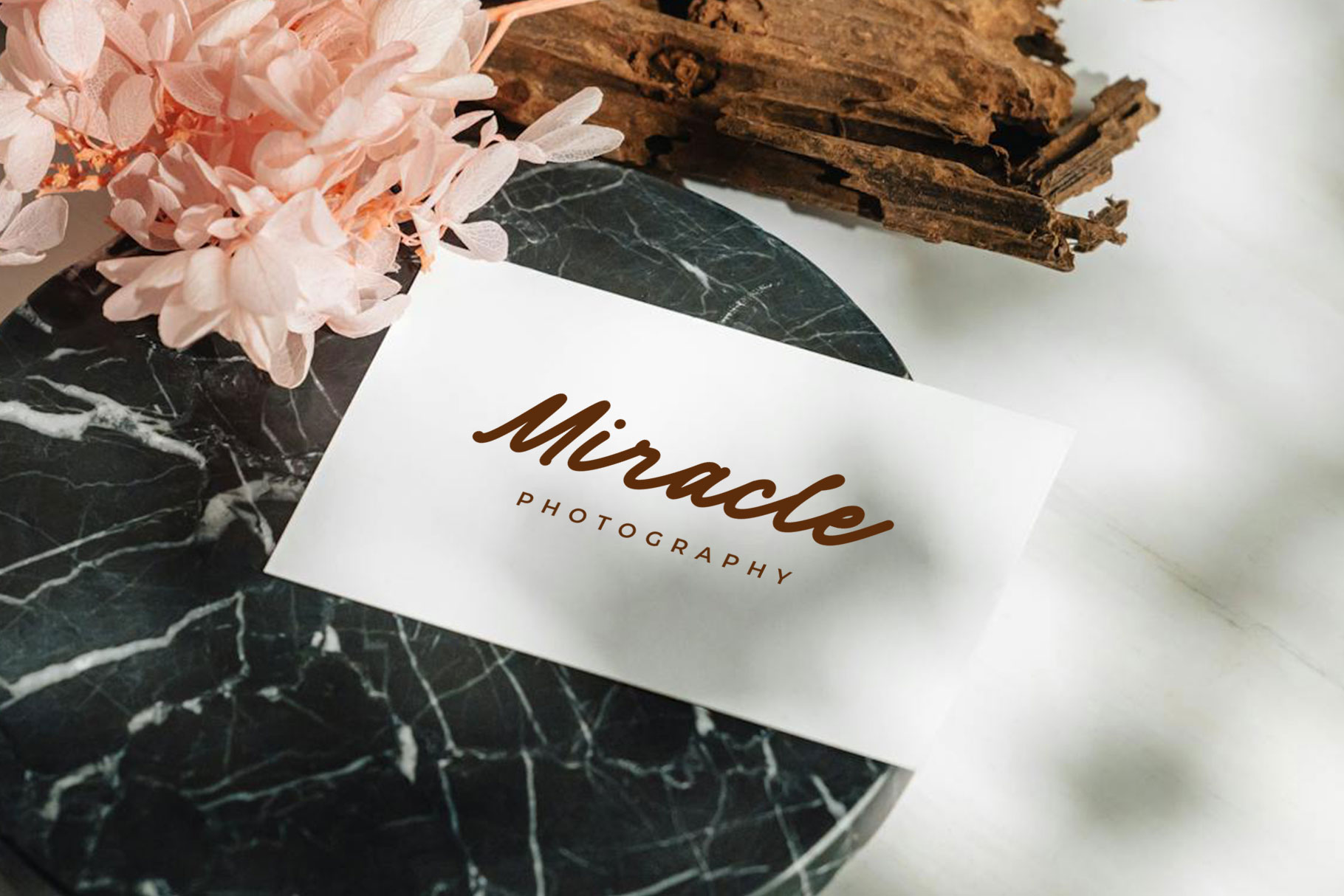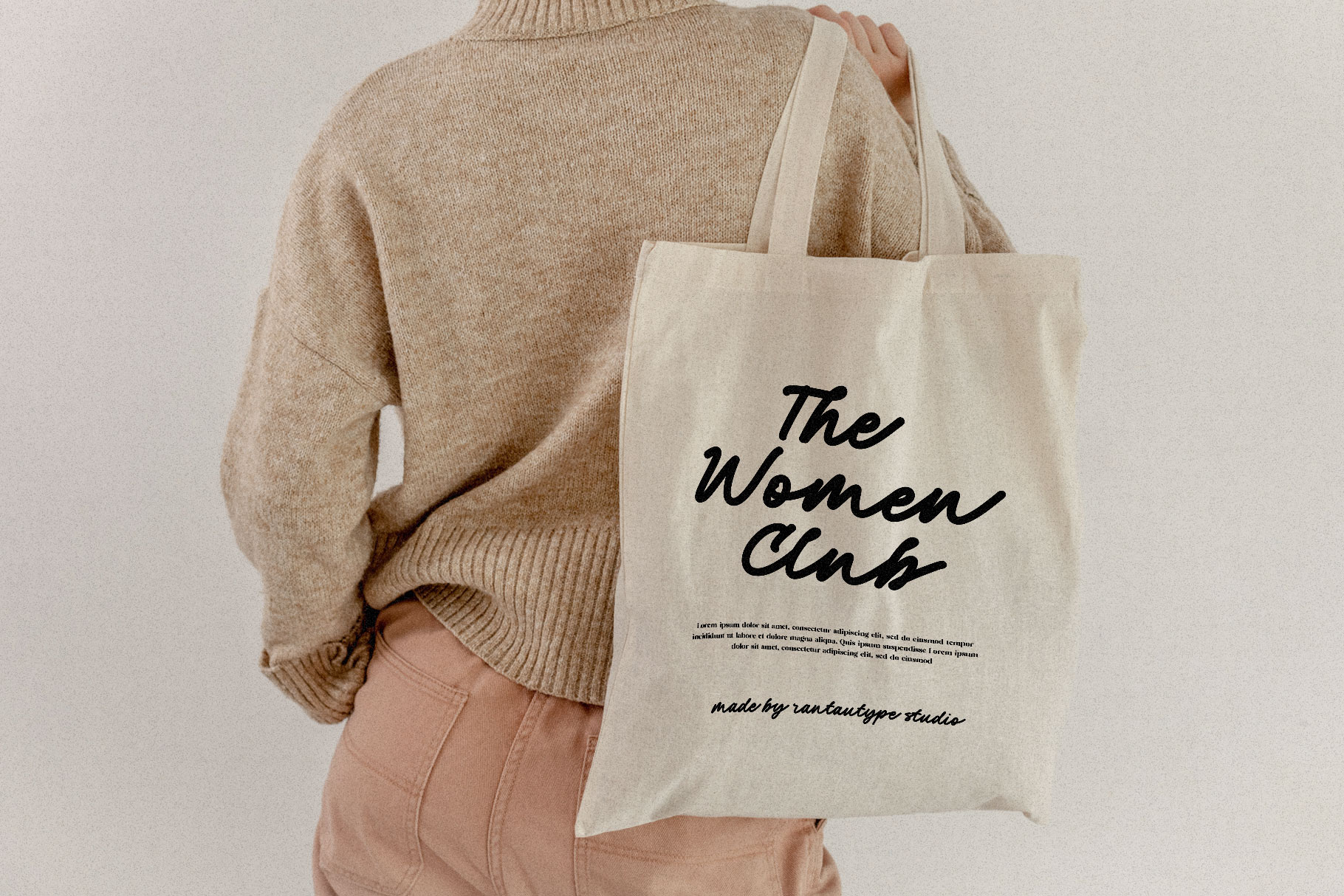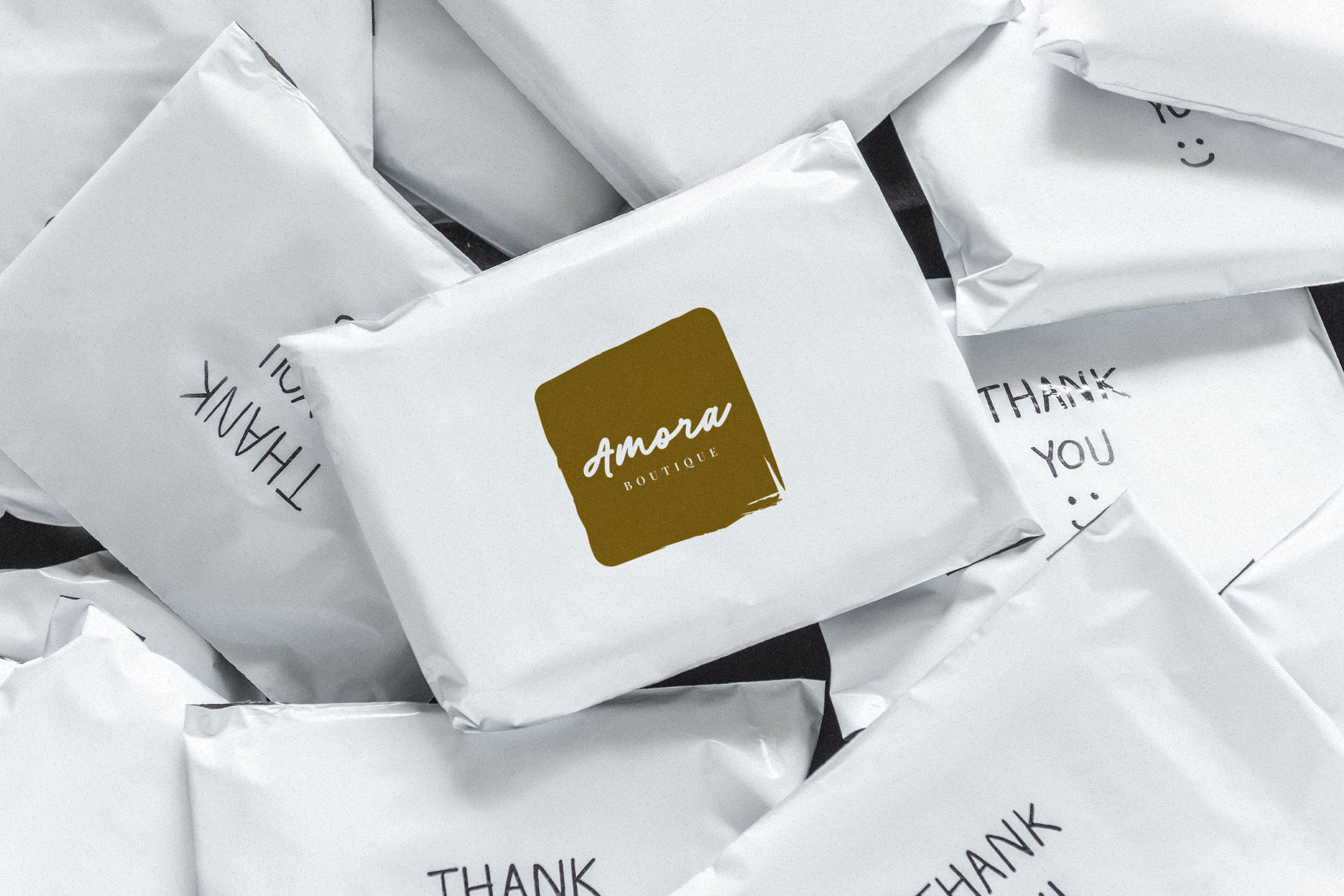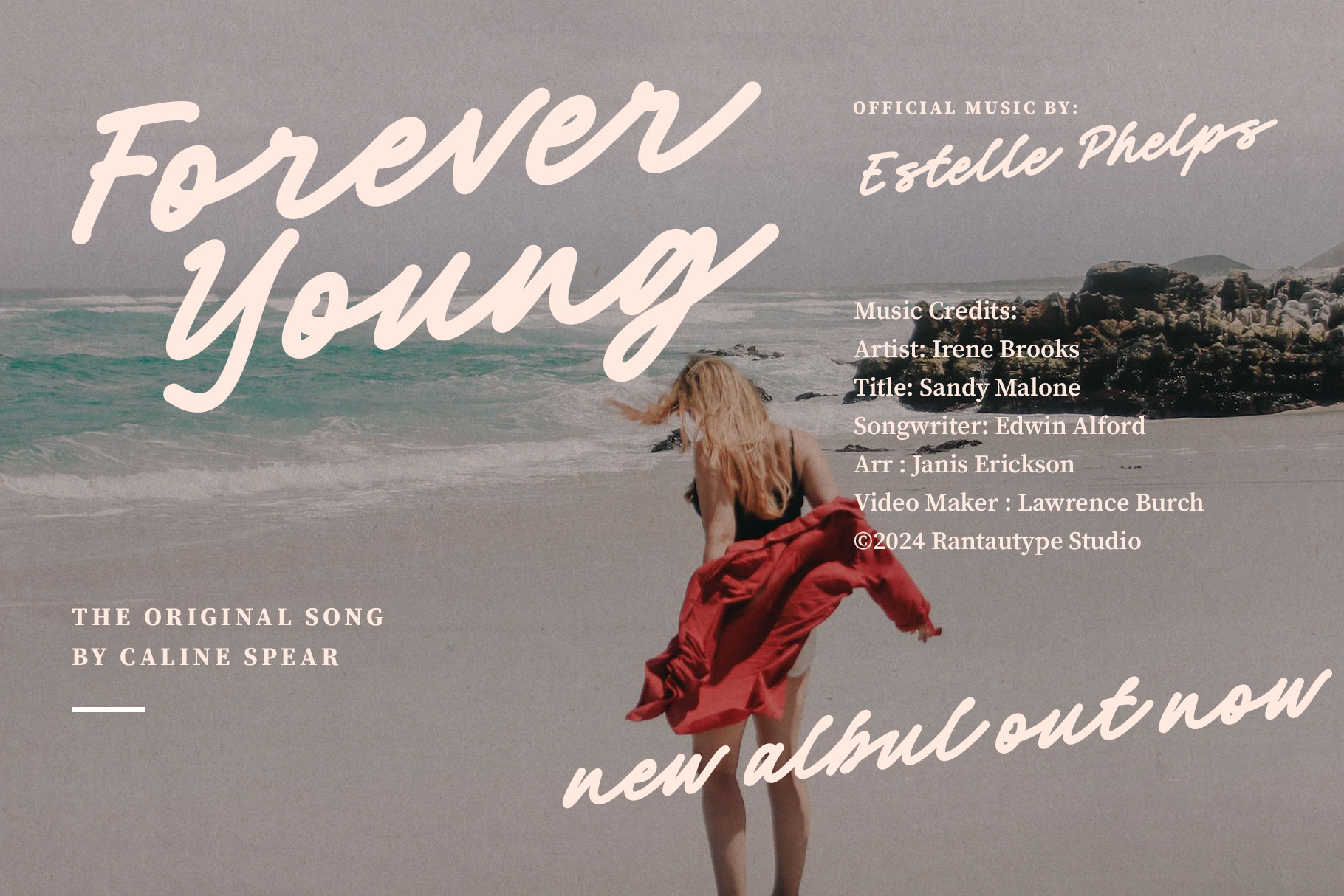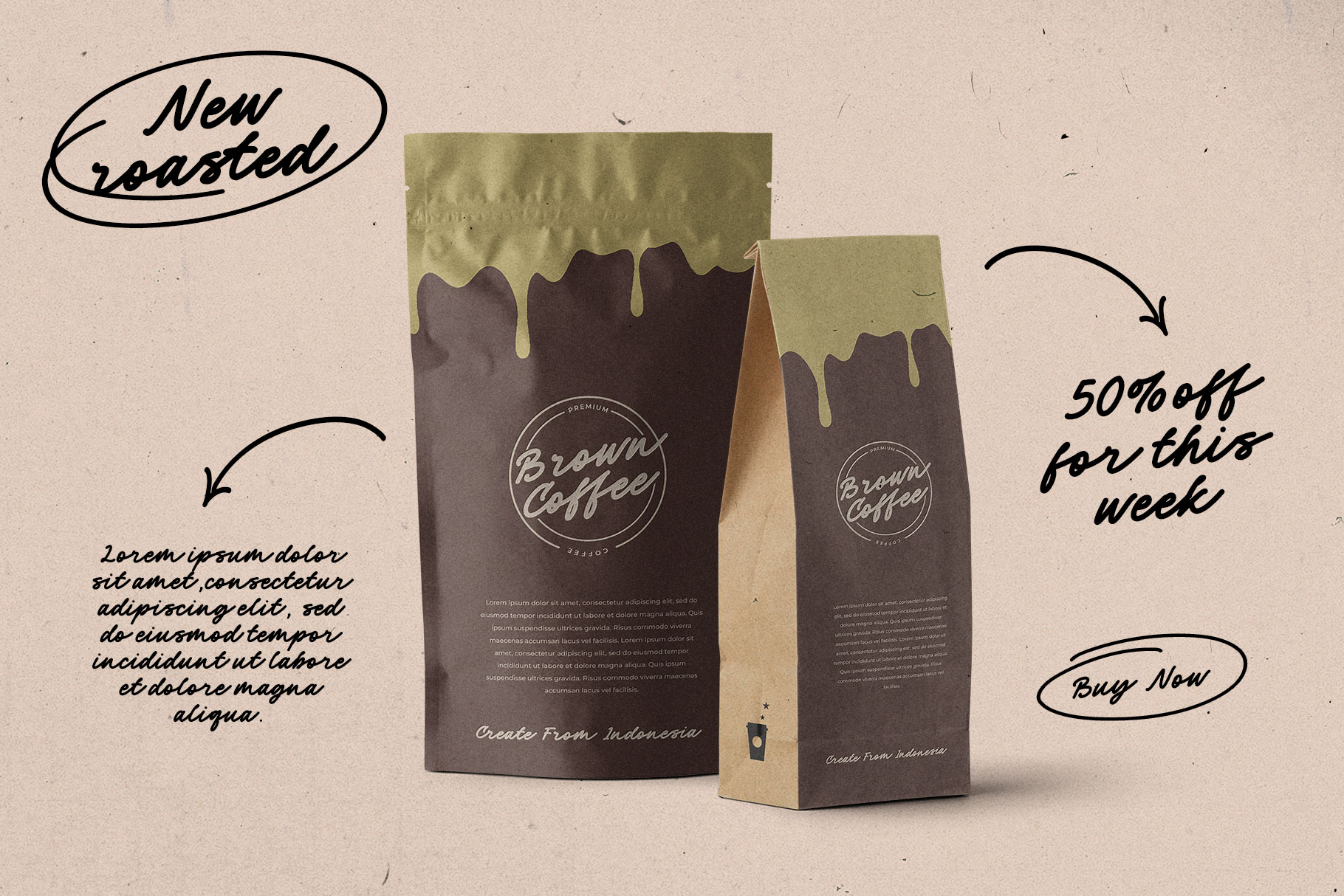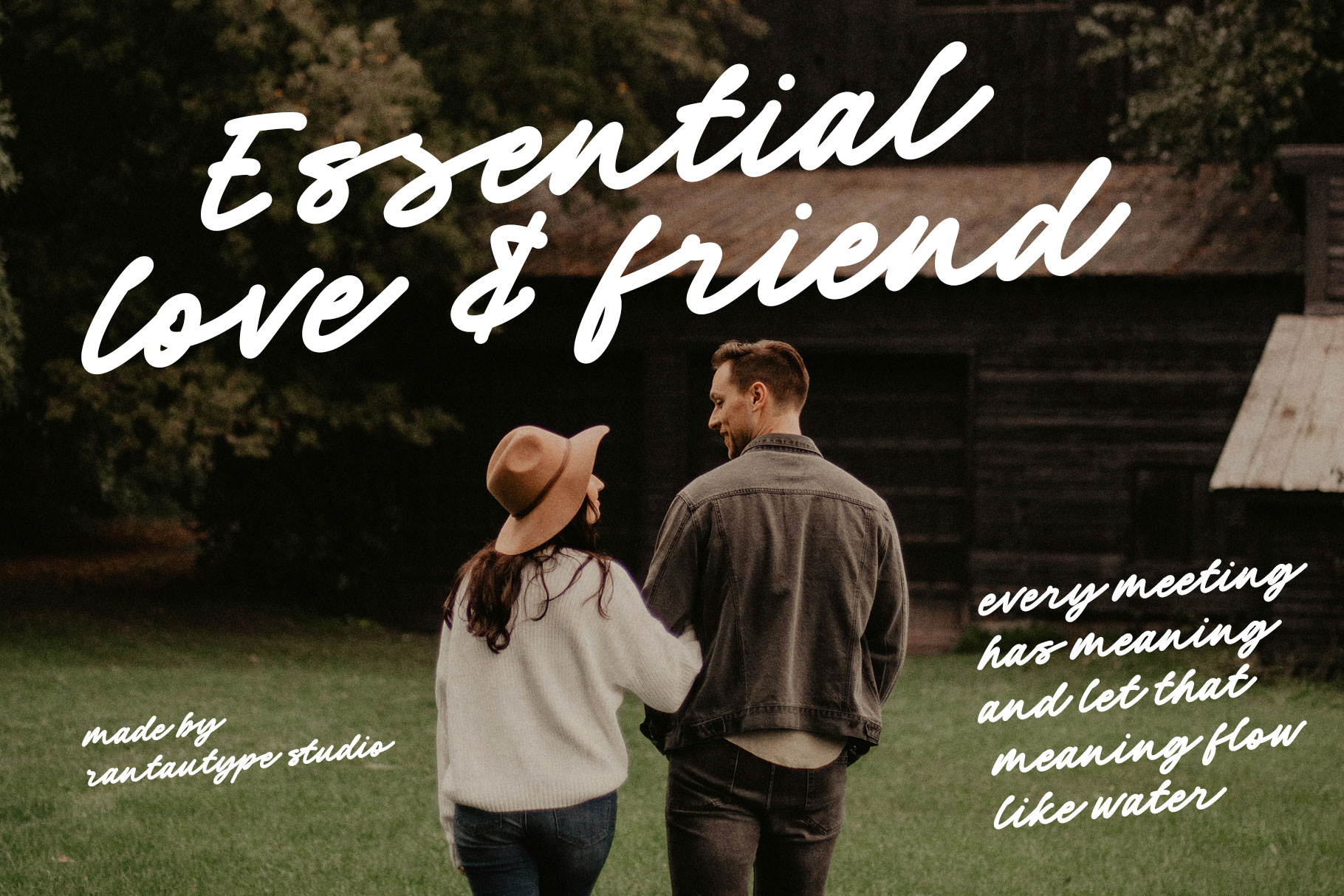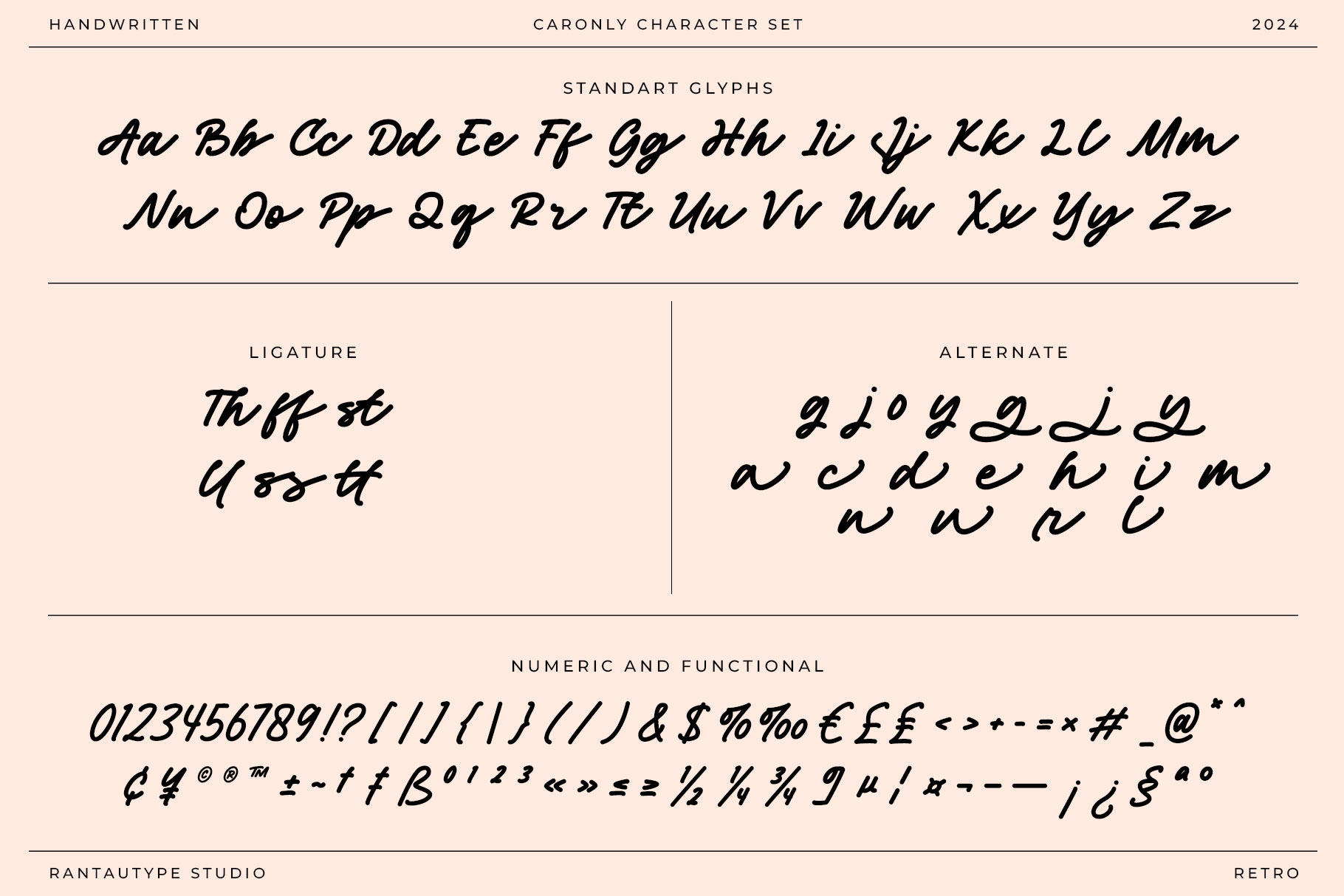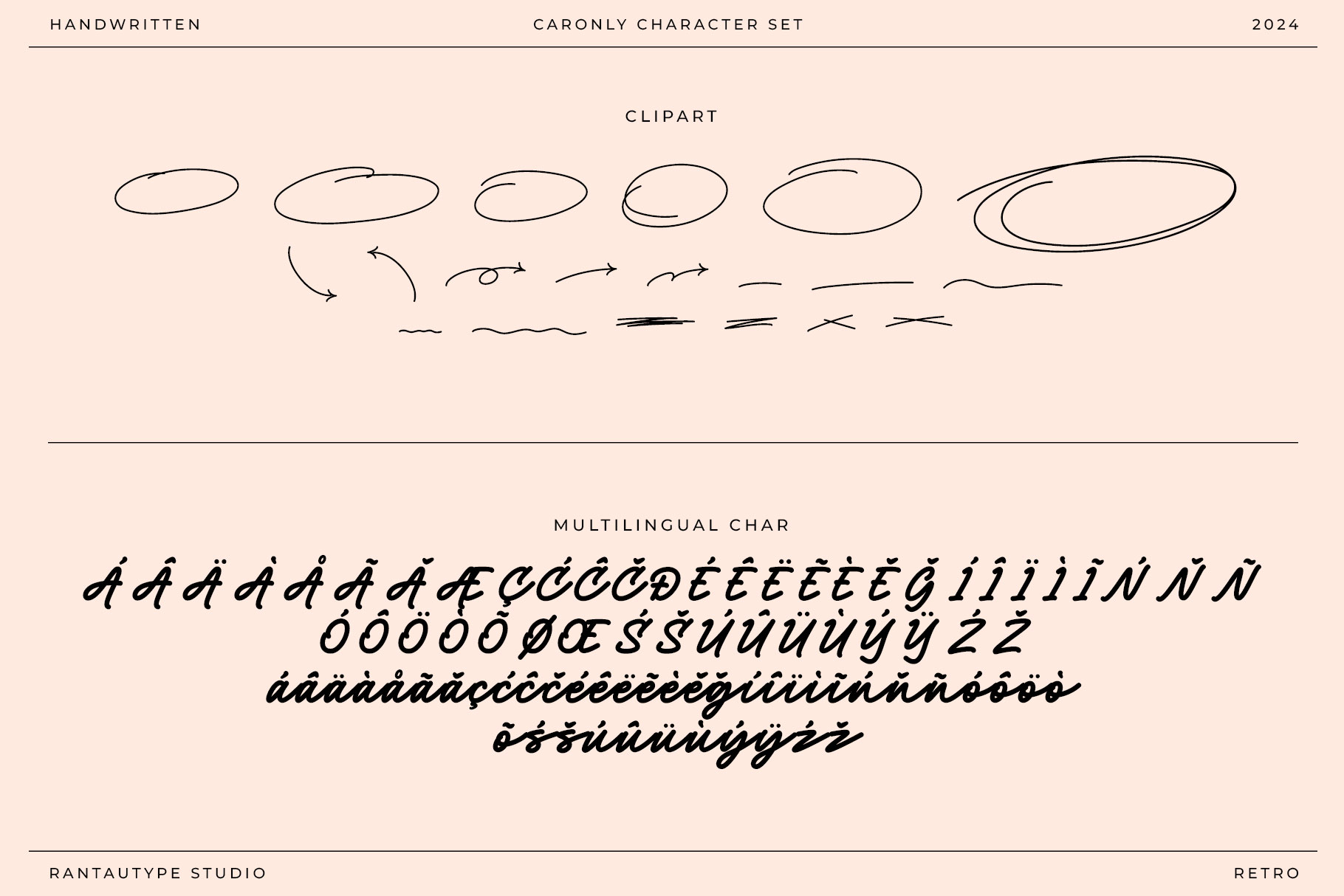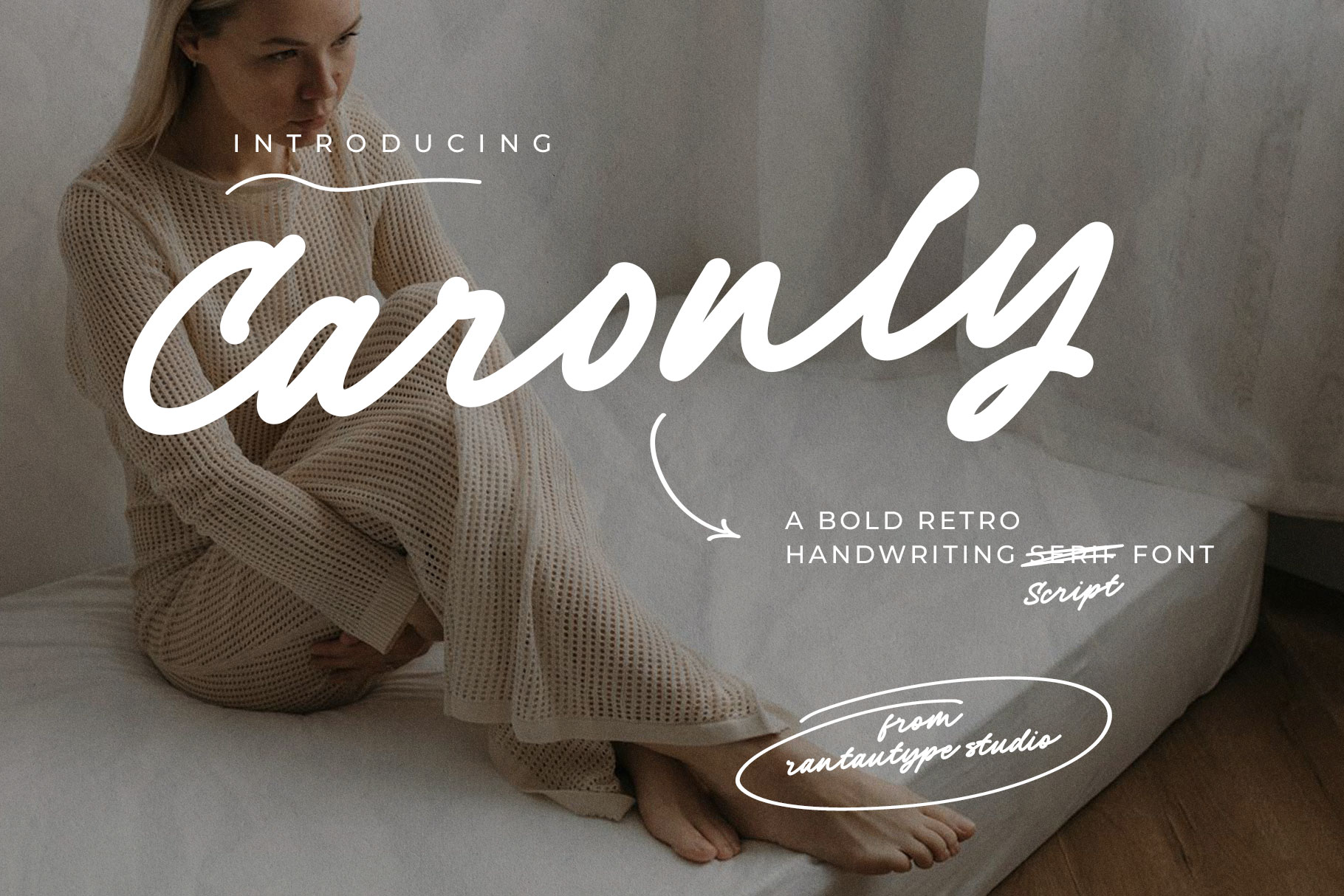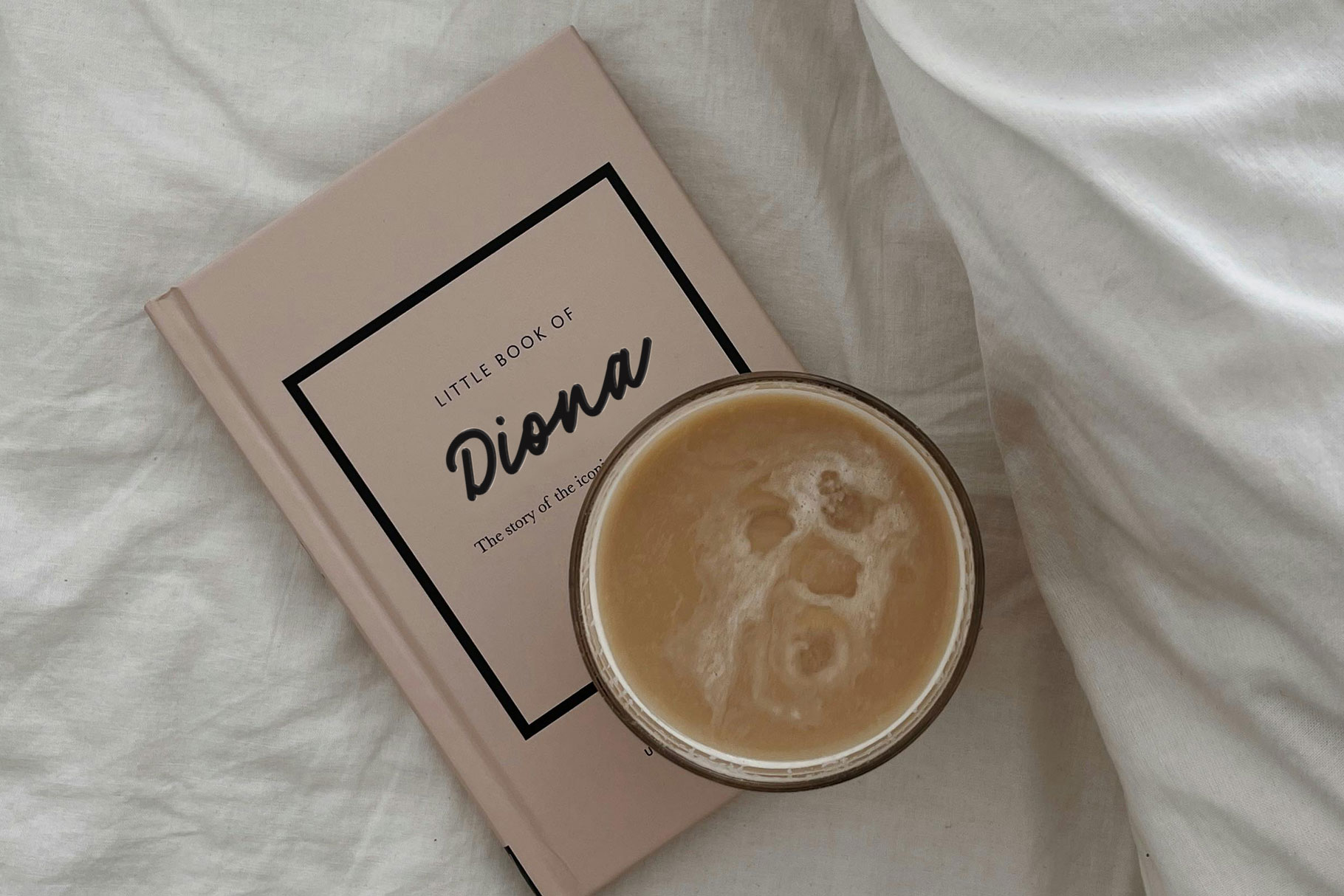
Caronly Retro Handwriting Font
Caronly is fresh handwritten script font with retro vibe. Caronly come with flowless, bold and clean. Caronly come with more swashes you can mix and match to make design your project stand out!
Caronly is a perfectly choice for any creative endeavor, chic, lifestyle design such as logotype, advertisements, watermark on photography, stationery, branding project, display and magazine, invitation, corporate brand, product design, label, business project and many other project with handwritten touch.